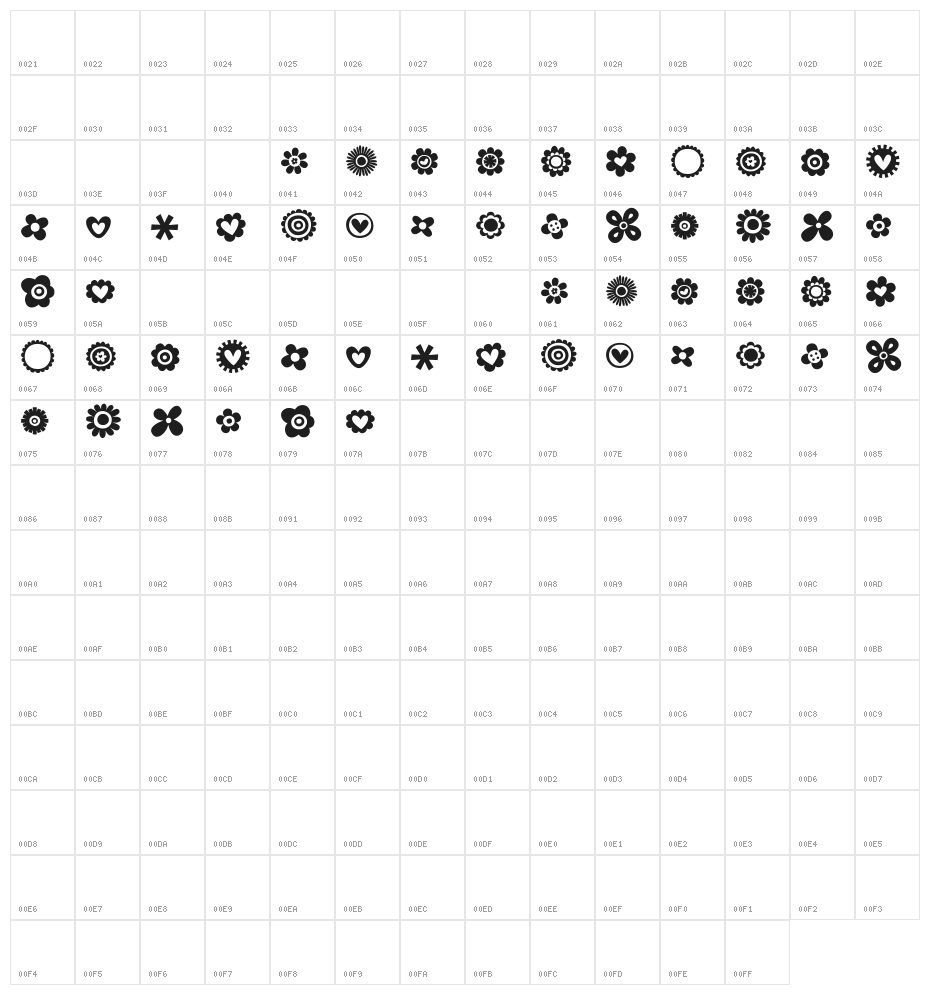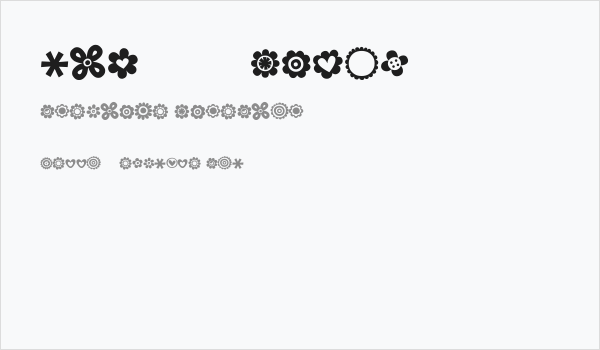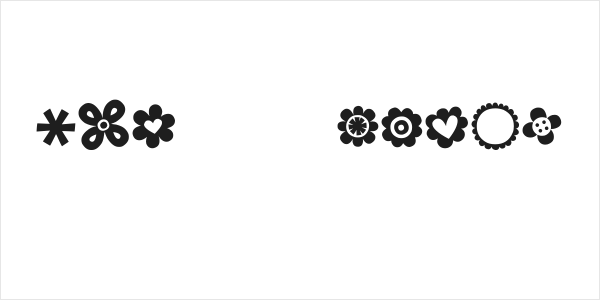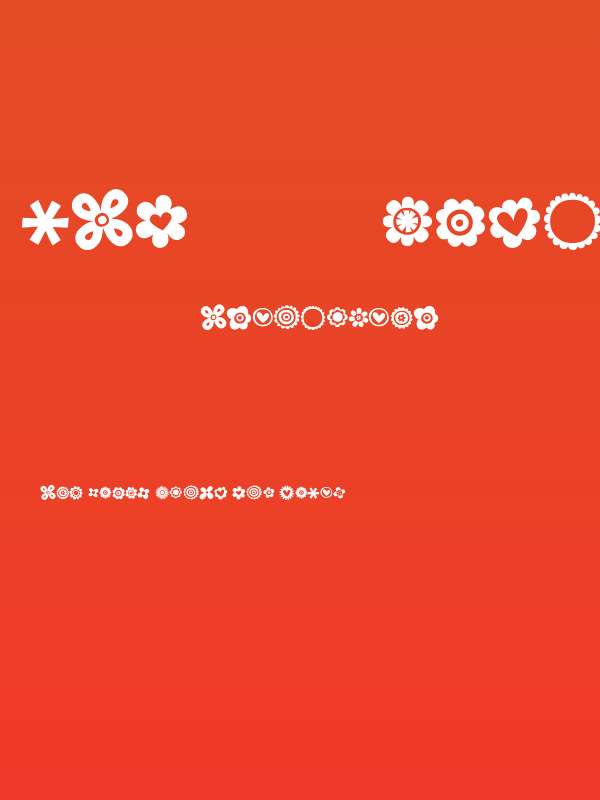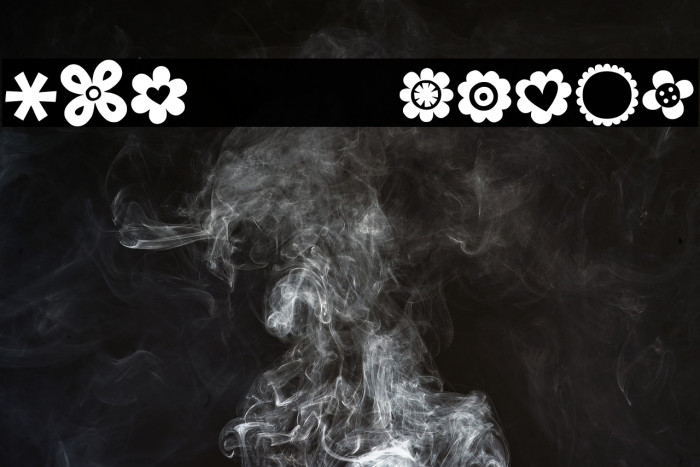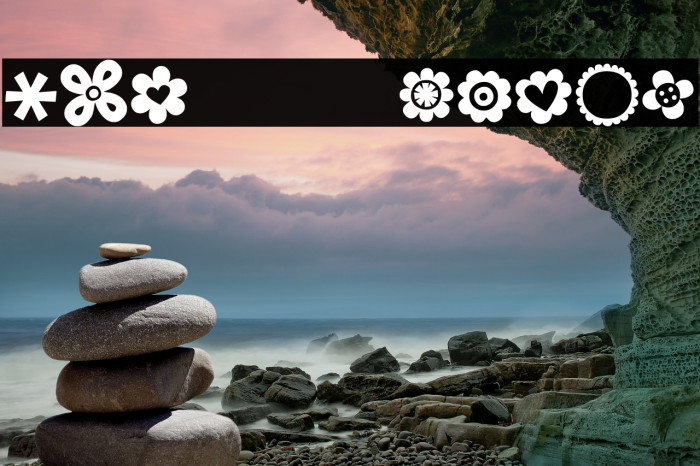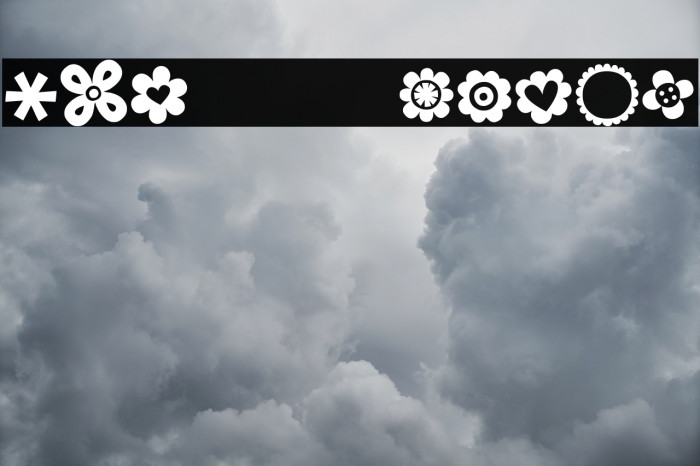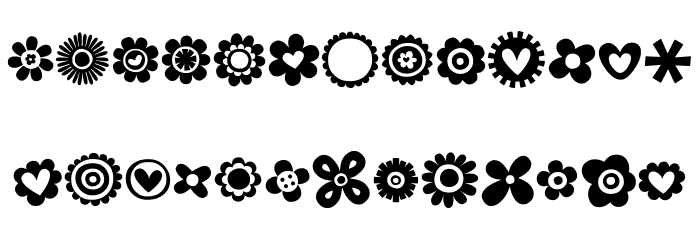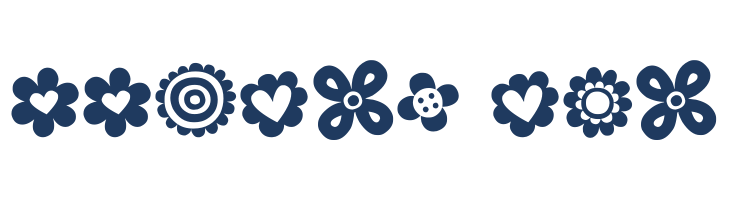
MTF 100 Dings Font
A playful collection of bold, solid black dingbat glyphs featuring various flower, heart, and geometric shapes with a whimsical and decorative style. Each character is a unique pictogram rather than a traditional letter or number.
| Overall Style | Decorative, Playful |
| Use Case | Decorative elements, embellishments, icons |
| Proposed Projects | Scrapbooking, greeting cards, invitations, decorative borders, children's projects, playful branding. |